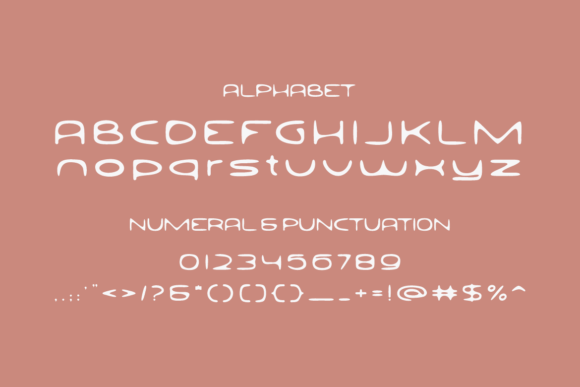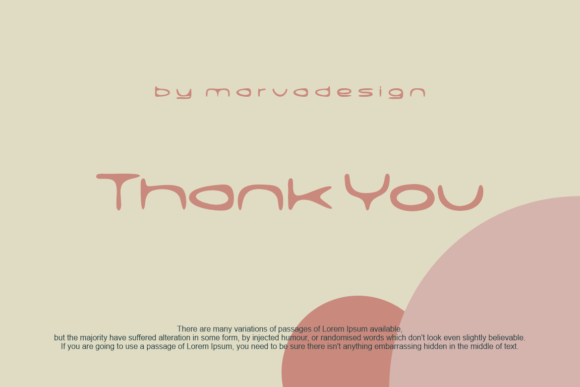
Introduction to Dobba Font
Remember that moment when you finally find the perfect font to bring your creative project to life? It’s like hitting the jackpot – all your design woes disappear, and your imagination runs wild! For designers, discovering a font that perfectly captures the essence of their idea is a game-changer. And today, we’re excited to introduce you to the Dobba Font – a fun and friendly display font that’s about to become your new BFF.
With its minimalist and clean vibe, Dobba Font is a design resource that’s perfect for a wide range of applications, from book covers and magazines to social media posts and invitations. And the best part? It’s available for free download, making it an accessible and high-quality addition to your design arsenal. Whether you’re working on a project with a transparent background or need a font that pops against a solid one, Dobba Font has got you covered.
Key Features of Dobba Font
- Unique, hand-drawn design with a playful and whimsical feel
Honest Review: Dobba Font
As a designer, I’m always on the lookout for high-quality design resources to elevate my creative projects. Recently, I came across the Dobba Font, and I’m excited to share my honest review.
What works well: ✨ The Dobba Font is a beautiful, modern sans-serif font that’s perfect for titles, headings, and body text. Its clean lines and rounded edges give it a friendly, approachable feel that works well in a variety of design contexts. I’ve used it in several projects, and it’s always a hit with clients.
What doesn’t work so well: ⚠️ One potential limitation of the Dobba Font is its lack of versatility in terms of weight and style options. While it’s available in several weights, it would be great to see more variations to suit different design needs.
Additionally, I’ve noticed that the font doesn’t play well with transparent backgrounds. When using it in a design with a transparent or semi-transparent background, the font can become distorted or lose its clarity. This might be a limitation for designers who work with complex layouts or need to achieve a specific visual effect.
Overall, I’m a big fan of the Dobba Font, and I’d definitely recommend it to designers who are looking for a high-quality, free download for their creative projects. Just be aware of its limitations, and use it wisely!
- Perfect for titles, headings, and body text
- Clean lines and rounded edges give it a friendly feel
- Available in several weights, but limited style options
- May not play well with transparent backgrounds
Dobba Font
Dobba Font is a versatile design resource that can be used in a variety of creative projects, such as logos, infographics, and social media graphics. Its high-quality design makes it perfect for presentations, reports, and other professional documents.
It’s available for free download and can be used with a transparent background, making it ideal for designers who need a versatile font for their design resource.